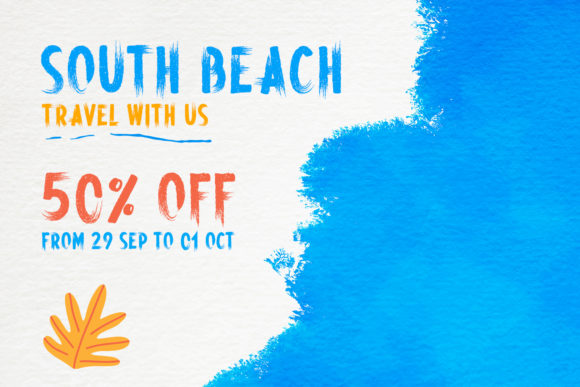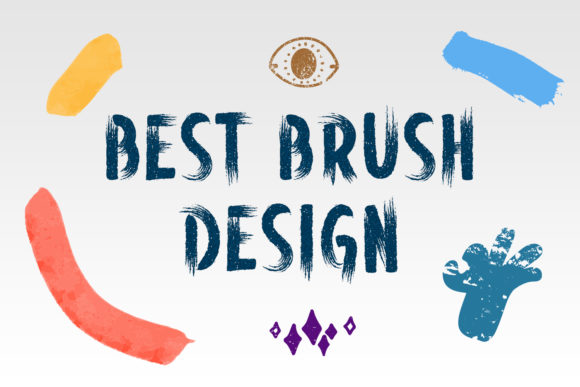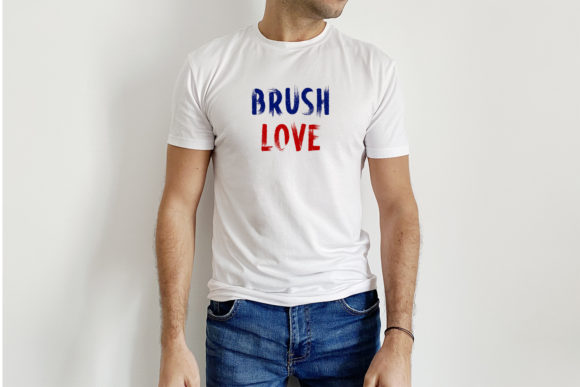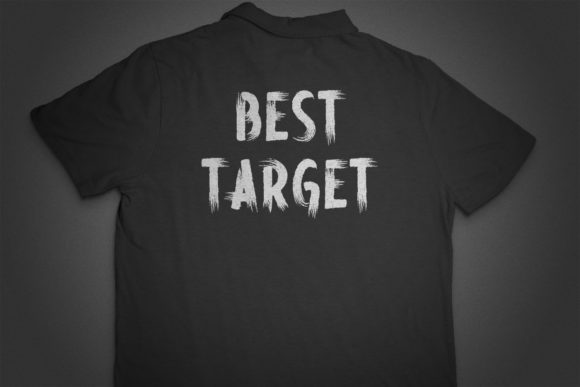
Introducing Hand Brush Font: Adding a Personal Touch to Your Designs
Are you tired of using the same old fonts in your designs? Do you want to add a personal touch to your creative projects? Look no further than Hand Brush Font, a unique and chunky lettered display font that is sure to make your designs come alive. Created with the help of a brush pen, this font is perfect for designers and crafters who want to add a touch of handmade charm to their work.
What is Hand Brush Font?
Hand Brush Font is a one-of-a-kind display font that is designed to mimic the look of hand-brushed lettering. With its chunky and irregular strokes, this font is perfect for creating eye-catching headlines, titles, and quotes. The font is created using a brush pen, which gives it a unique and organic feel that is sure to grab attention.
Features of Hand Brush Font
- Unique and Handmade Look: Hand Brush Font has a distinctive handmade look that sets it apart from other fonts. The irregular strokes and chunky letters give it a personal touch that is sure to make your designs stand out.
- Chunky and Bold: The font is designed to be bold and chunky, making it perfect for creating eye-catching headlines and titles.
- Easy to Read: Despite its chunky design, Hand Brush Font is easy to read and understand, making it perfect for use in a variety of design projects.
- Versatile: Hand Brush Font can be used in a variety of design projects, from posters and flyers to social media graphics and blog posts.
How to Use Hand Brush Font
Hand Brush Font is easy to use and can be incorporated into a variety of design projects. Here are a few ways you can use this font:
- Create Eye-Catching Headlines: Use Hand Brush Font to create bold and eye-catching headlines that grab attention.
- Add a Personal Touch to Your Designs: Add a personal touch to your designs by using Hand Brush Font in your titles, quotes, and other design elements.
- Use in Social Media Graphics: Use Hand Brush Font in your social media graphics to add a touch of personality and style.
- Perfect for Crafters and DIY Enthusiasts: Hand Brush Font is perfect for crafters and DIY enthusiasts who want to add a personal touch to their projects.
Benefits of Using Hand Brush Font
There are many benefits to using Hand Brush Font in your designs. Here are a few:
- Adds a Personal Touch: Hand Brush Font adds a personal touch to your designs, making them more unique and eye-catching.
- Stand Out from the Crowd: With its unique and handmade look, Hand Brush Font is sure to make your designs stand out from the crowd.
- Easy to Use: Hand Brush Font is easy to use and can be incorporated into a variety of design projects.
- Versatile: Hand Brush Font can be used in a variety of design projects, from posters and flyers to social media graphics and blog posts.
Hand Brush Font is a unique and chunky lettered display font that is sure to add a personal touch to your designs. With its handmade look and bold strokes, this font is perfect for designers and crafters who want to create eye-catching headlines, titles, and quotes. Whether you’re looking to add a touch of personality to your designs or stand out from the crowd, Hand Brush Font is the perfect choice.